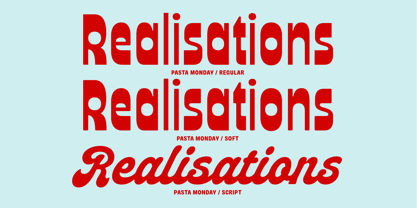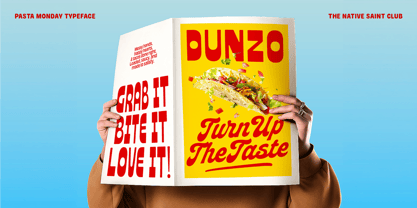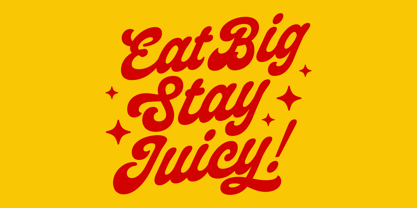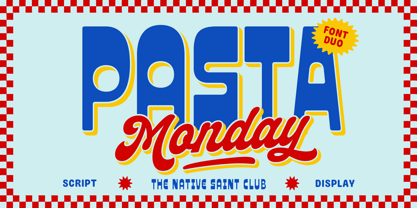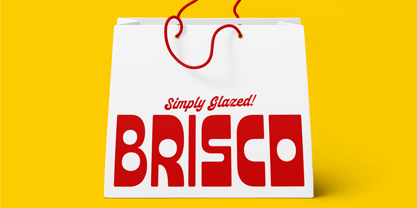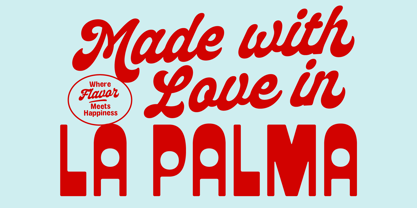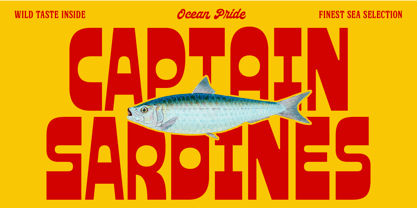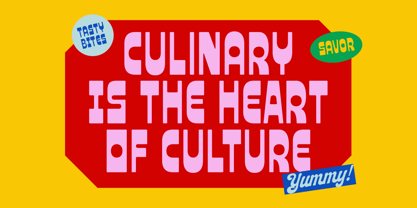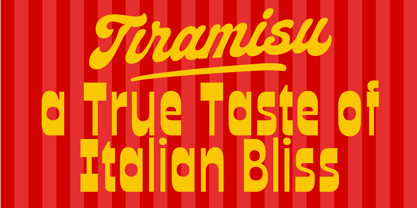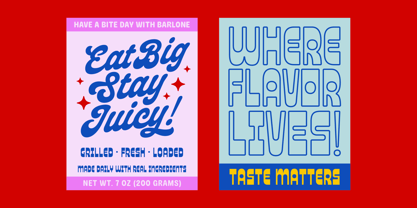
Pasta Monday
by The Native Saint Club
The Pasta Monday Font Family was designed by Bagas Ferdiansah, Septianto Nugroho and published by The Native Saint Club. Pasta Monday contains 3 styles and family package options. More about this family
TNSC Pasta Monday is a playful FONT DUO combining a bold retro display and an expressive script inspired by vintage food signage and classic packaging. Perfect for branding, packaging, menus, posters, logos, and social media designs. What Will You Get : Pasta Monday Regular Pasta Monday Soft Pasta Monday Script NOTE : Please Check the Help File first and for all the characters are also available, accessible in the Adobe Illustrator Glyphs Panel, or in Adobe Photoshop Character Open Type Panel.